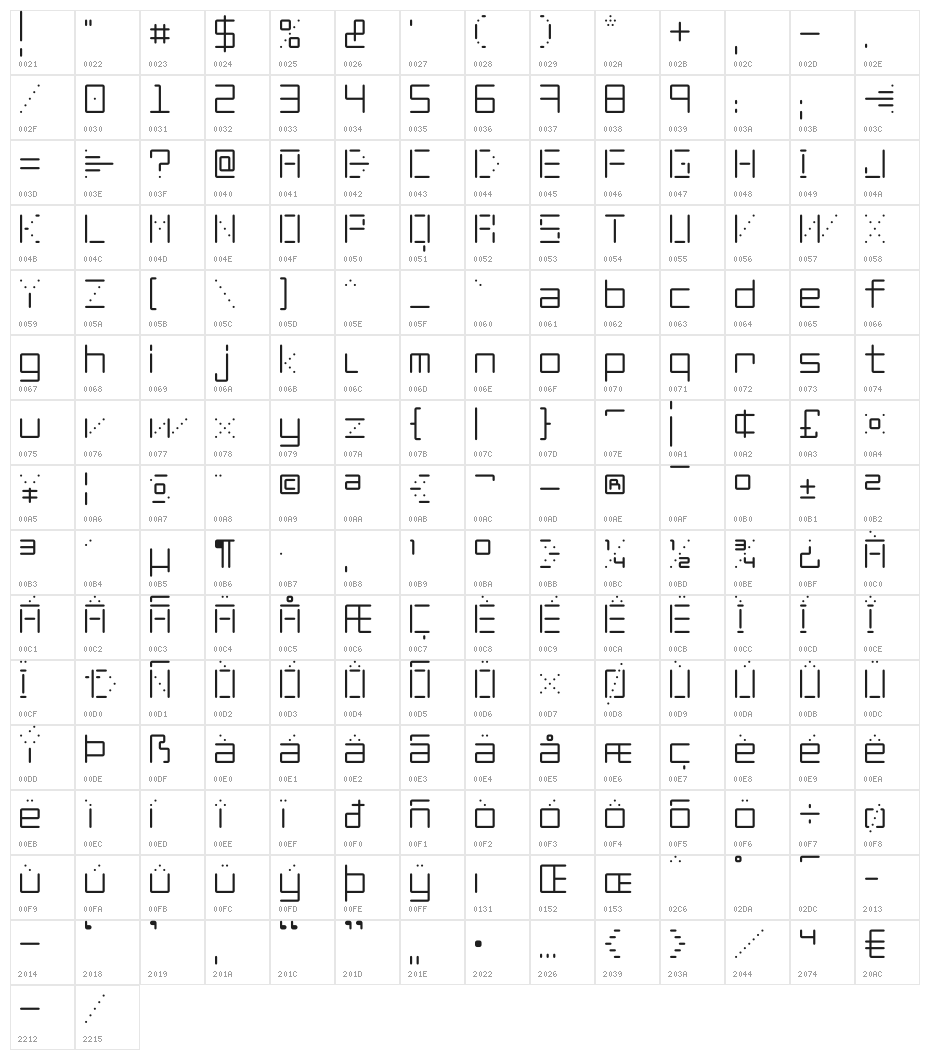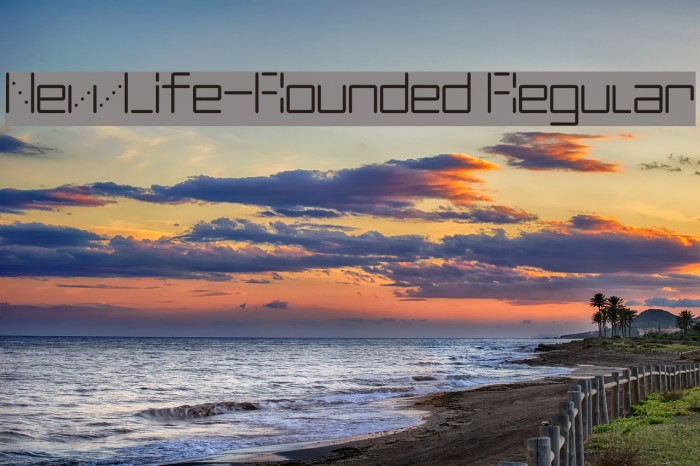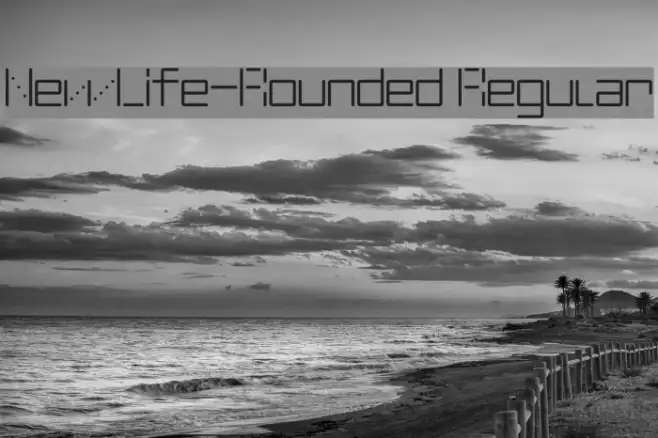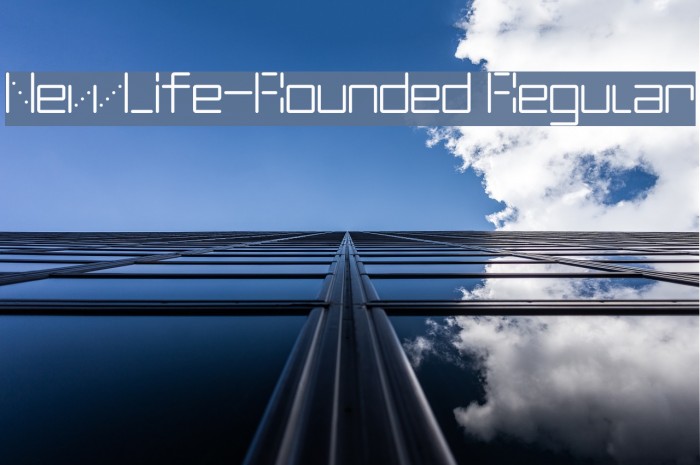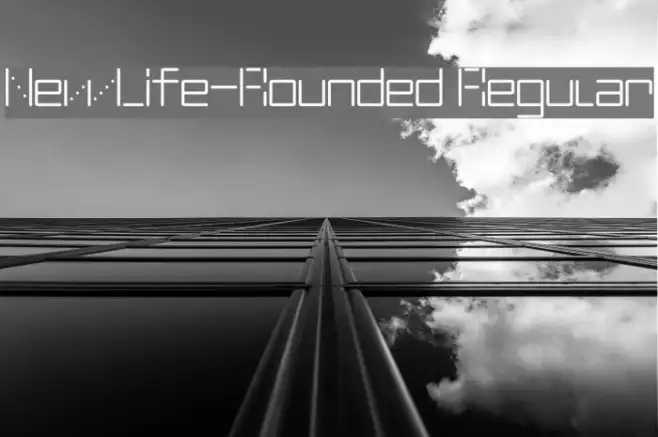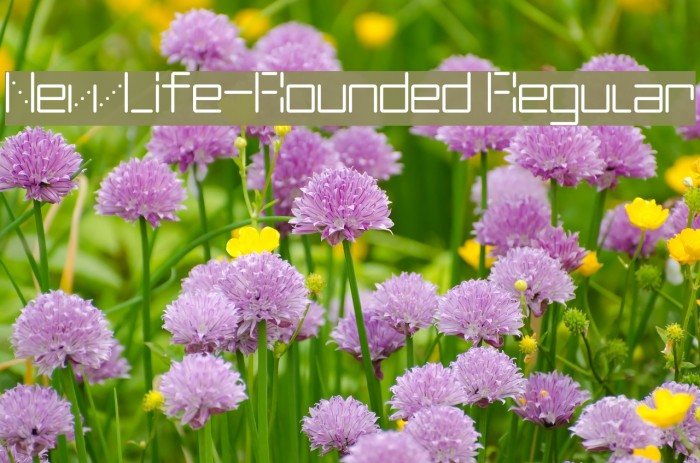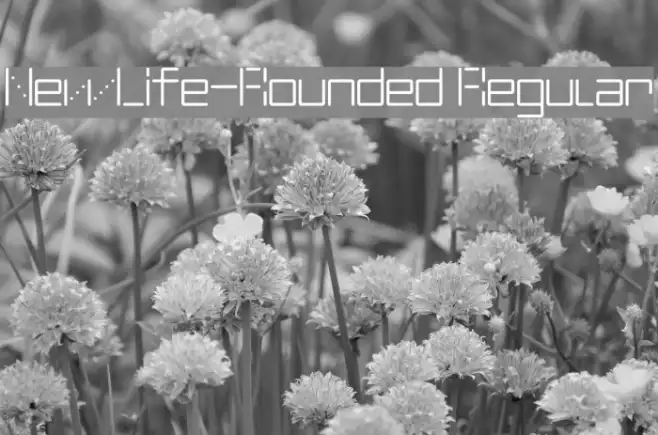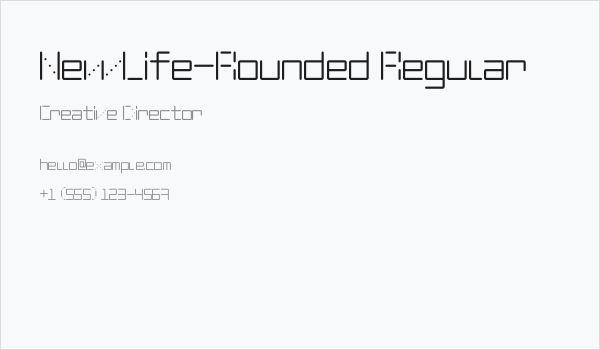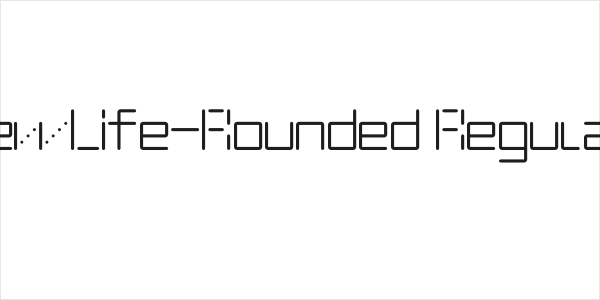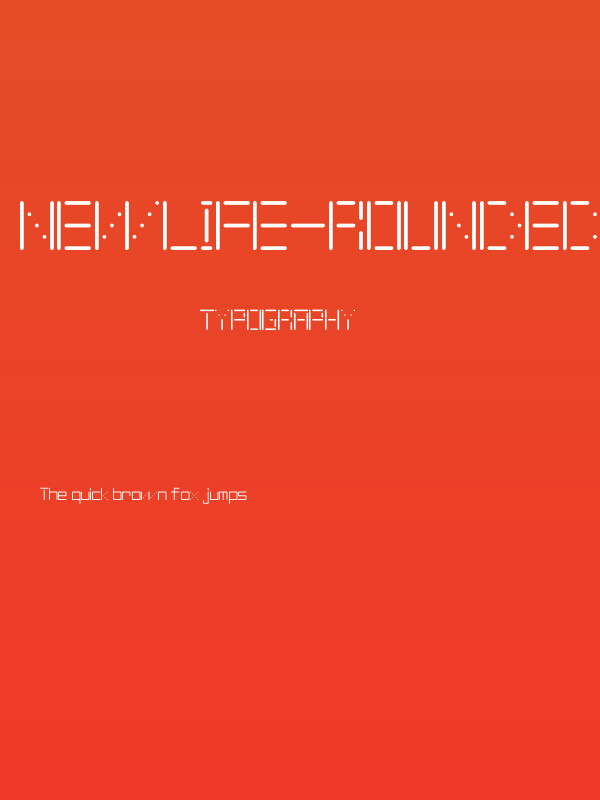
NewLife-Rounded Regular Font
NewLife-Rounded Regular Description
This font features a modern, geometric design with rounded edges, creating a futuristic and digital aesthetic. The characters are constructed with a consistent stroke width, giving it a clean and uniform appearance. The rounded corners soften the overall look, making it approachable and friendly. The uppercase and lowercase letters maintain a similar width, enhancing readability. The numerals and special characters follow the same design principles, ensuring a cohesive style throughout. This font is well-suited for digital displays and projects that require a contemporary and tech-savvy vibe.
| Use Case | Logos, Headlines, Digital displays |
| Proposed Projects | Ideal for digital displays, tech branding, futuristic designs, and user interfaces. |